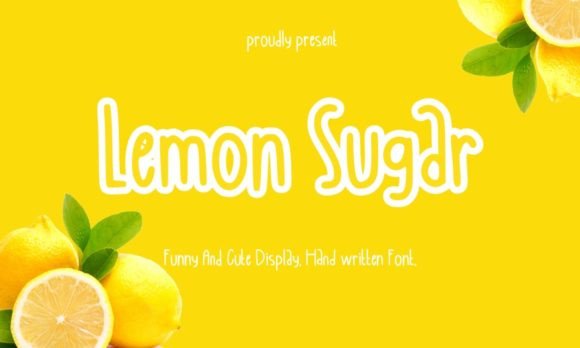
Lemon Sugar Font: The Perfect Addition to Your Design Projects
Are you looking for a font that can add a touch of happiness and whimsy to your design projects? Look no further than Lemon Sugar Font. This enchanting font is brimming with fanciful elements that are sure to brighten up any design. In this article, we’ll take a closer look at Lemon Sugar Font and how it can be used to add a sugary zing to your designs.
The Charm of Lemon Sugar Font
Lemon Sugar Font is a unique and captivating font that is perfect for designers who want to add a touch of personality to their work. Its merry allure is well-suited to brighten the look of common goods, from your morning coffee mug to your favorite t-shirt or a comforting book cover. The font’s playful and whimsical design makes it perfect for a wide range of design projects, from branding and packaging to advertising and marketing materials.
Key Features of Lemon Sugar Font
- Fanciful Elements: Lemon Sugar Font is brimming with fanciful elements that add a touch of whimsy and happiness to your designs.
Uses of Lemon Sugar Font
Lemon Sugar Font is a versatile font that can be used for a wide range of design projects. Here are some examples of how you can use this font:
- Branding and Packaging: Use Lemon Sugar Font to create eye-catching branding and packaging materials, such as labels, stickers, and business cards.
- Advertising and Marketing: The font’s playful and whimsical design makes it perfect for advertising and marketing materials, such as flyers, brochures, and social media graphics.
- Digital Design: Lemon Sugar Font can be used for digital design projects, such as website headers, email newsletters, and social media graphics.
- Print Design: The font is also perfect for print design projects, such as book covers, magazine layouts, and poster designs.
Benefits of Using Lemon Sugar Font
There are many benefits to using Lemon Sugar Font in your design projects. Here are some of the advantages of using this font:
- Adds a Touch of Happiness: Lemon Sugar Font adds a touch of happiness and whimsy to your designs, making them more engaging and eye-catching.
- Increases Brand Recognition: The font’s unique and captivating design can help increase brand recognition and make your brand stand out.
- Improves Design Quality: Lemon Sugar Font features a high-quality design that can improve the overall quality of your designs.
Tips for Using Lemon Sugar Font
Here are some tips for using Lemon Sugar Font in your design projects:
- Use it Sparingly: Use Lemon Sugar Font sparingly to avoid overwhelming your design.
- Pair it with Other Fonts: Pair Lemon Sugar Font with other fonts to create a unique and visually appealing design.
- Experiment with Colors: Experiment with different colors to find the perfect combination that works with Lemon Sugar Font.
- Keep it Consistent: Keep your design consistent by using Lemon Sugar Font throughout your design project.
Lemon Sugar Font is a unique and captivating font that can add a touch of happiness and whimsy to your design projects. Its merry allure is well-suited to brighten up common goods, from your morning coffee mug to your favorite t-shirt or a comforting book cover. With its ease of installation, universal compatibility, and high-quality design, Lemon Sugar Font is a great choice for designers of all skill levels. So why not give it a try and see how it can add a sugary zing to your designs?
- Q: What is Lemon Sugar Font?